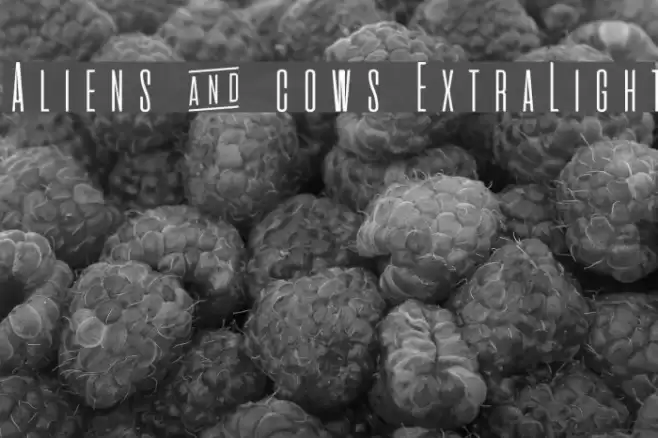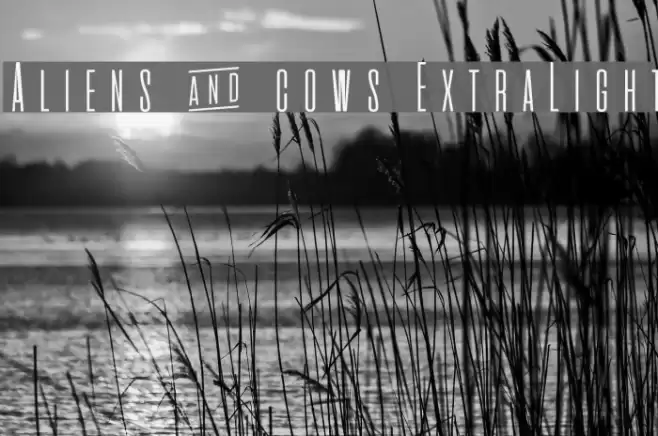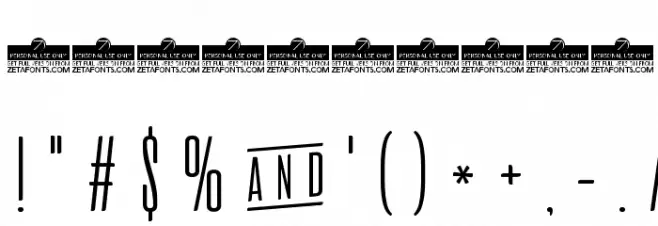
Aliens & cows ExtraLight Font
Aliens & cows ExtraLight Description
This font features a tall, narrow design with a modern and sleek appearance. The uppercase and lowercase letters maintain a consistent height, emphasizing verticality. The characters are clean and minimalistic, with a slight geometric influence, making them suitable for contemporary design projects. The numerals and special characters follow the same aesthetic, ensuring uniformity across all text elements. The font's thin strokes and elongated forms give it an elegant and sophisticated look, ideal for creating a refined visual impact.
A modern, tall, and narrow font with a sleek, minimalistic design from Uncategorized fonts.
- Proposed Projects: Ideal for fashion magazines, luxury branding, modern posters, and minimalist web design.